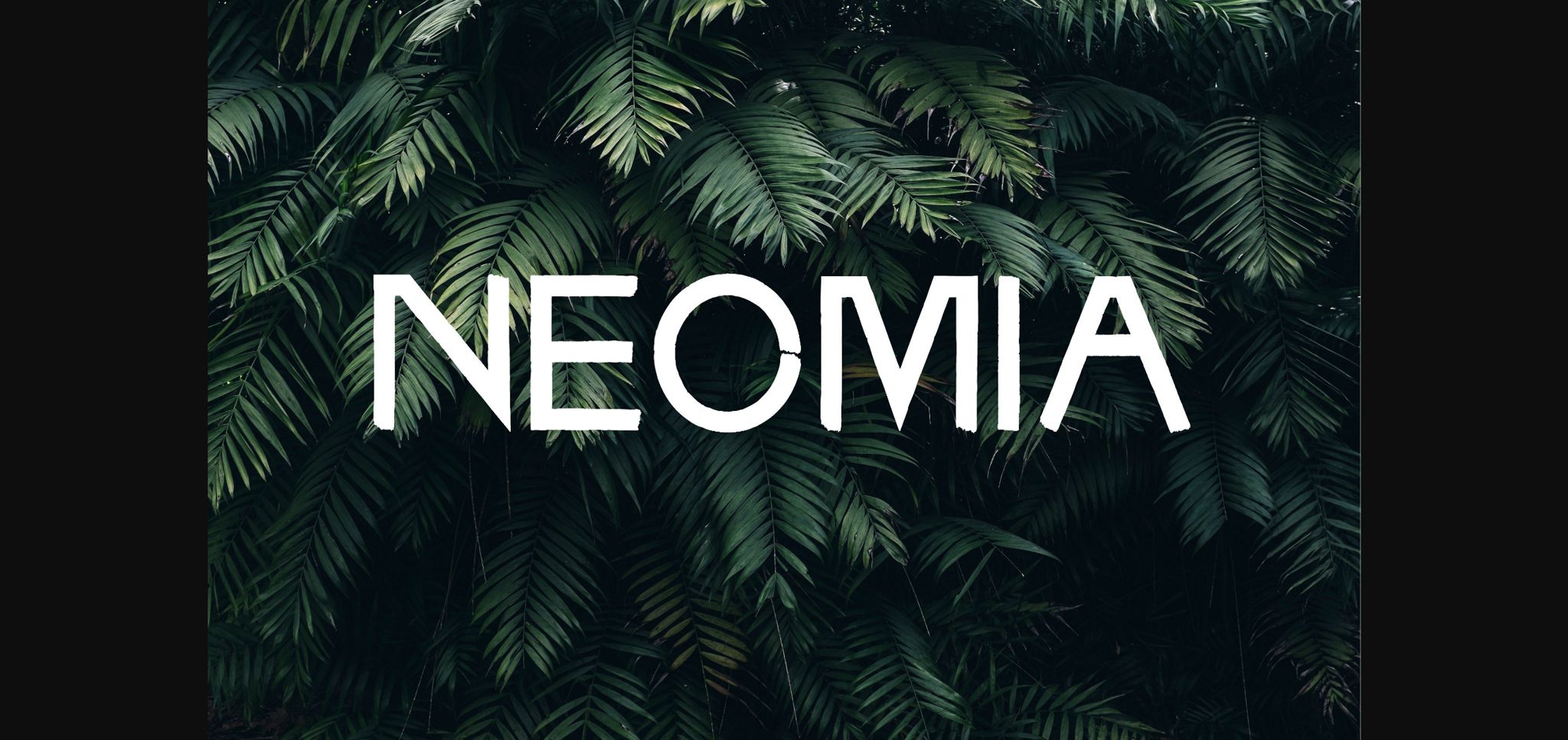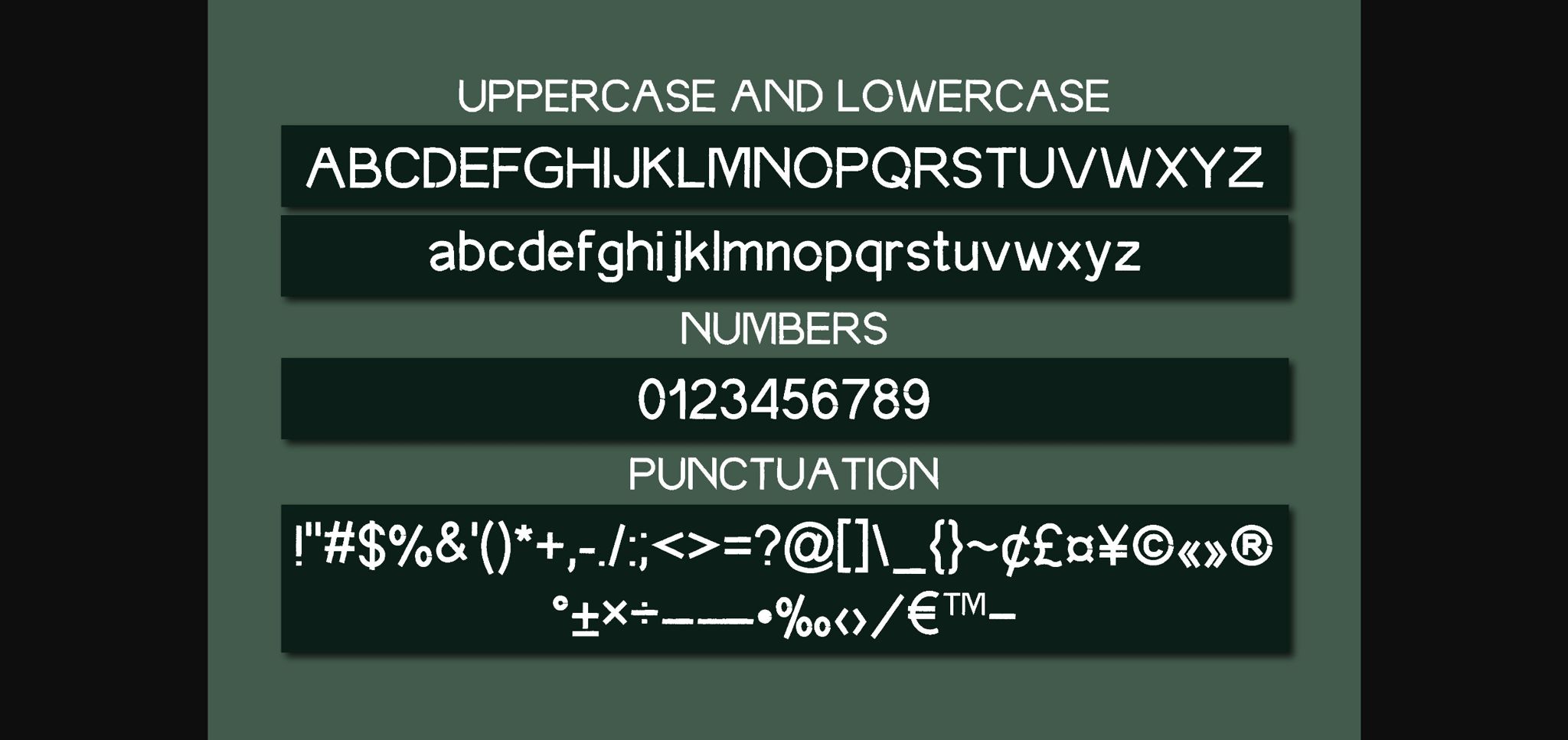
About Neomia Font
Neomia is a cool and neat sans serif font. It works great for branding, logos, magazines, films, holiday cards, quotes, advertisements, lettering, and more. Use it to add an elegant look to your designs.